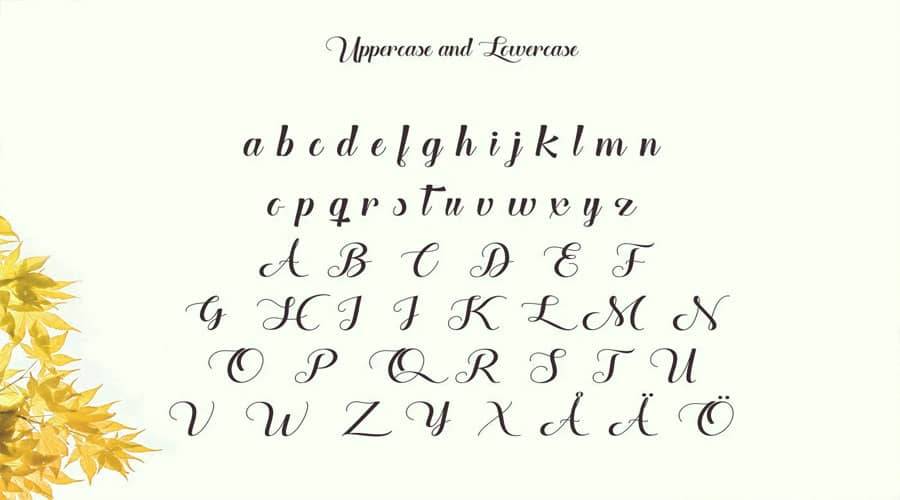
The Heart of Everything: An Introduction Misti’s Fonts designed and published a handy handwritten and Script Font on December 4, 2017.
The designer created all of the preview pictures to demonstrate the potential of this must-have free typeface. This Font is available for personal and charitable use at no cost.
The Heart of Everything Font Free is perfect for a wide range of design projects, including watermarking, photographs, item plans, item packaging, advertising, social media posts, wedding plans, trademarks and branding, writing materials, and so much more. This text style is also appropriate for wedding invitations or your blog. The beautiful Font is seen in use for the captions for various photography pages on Facebook and Instagram.